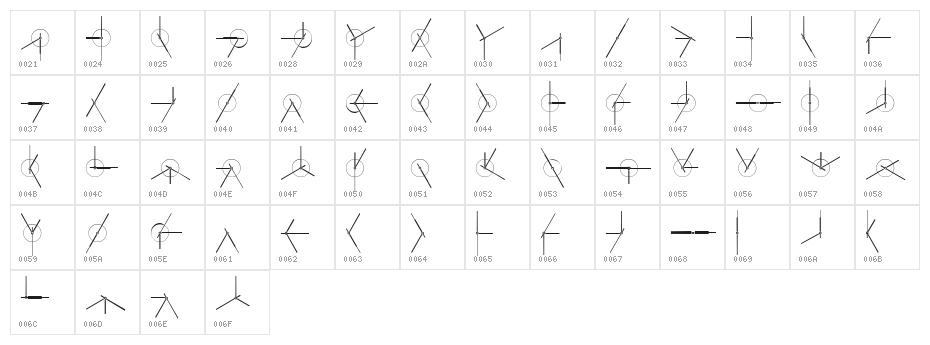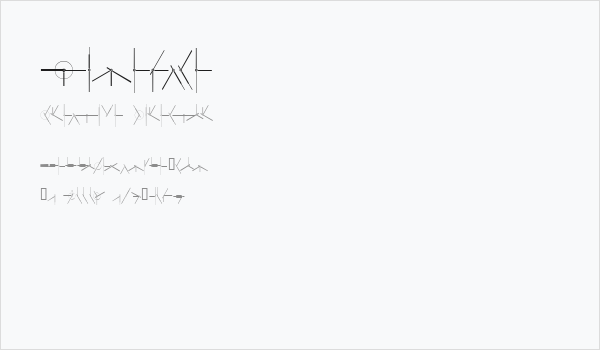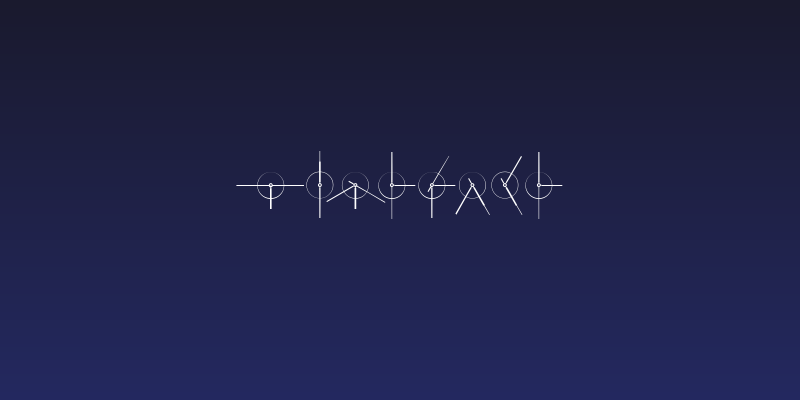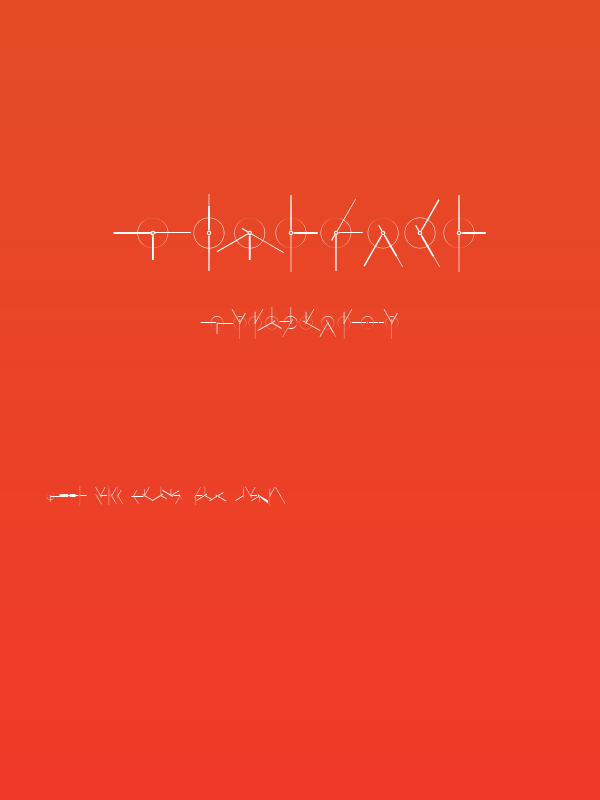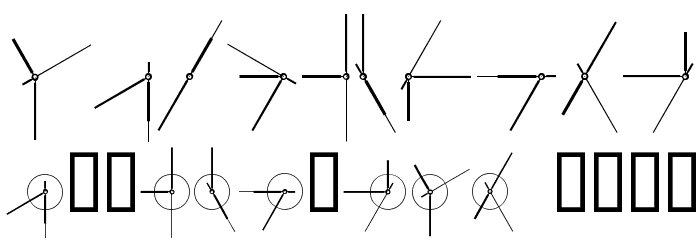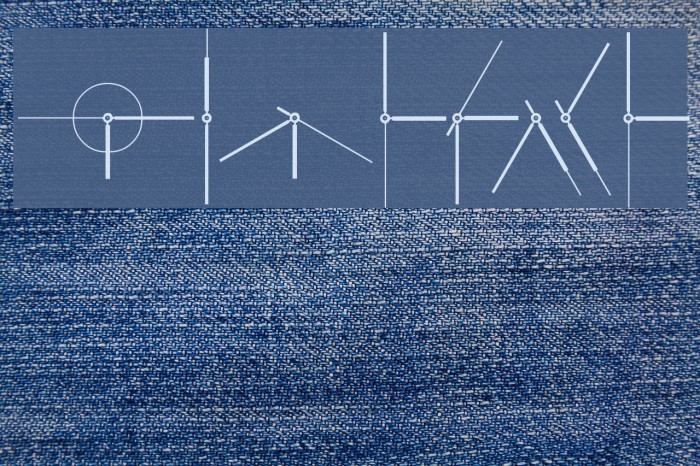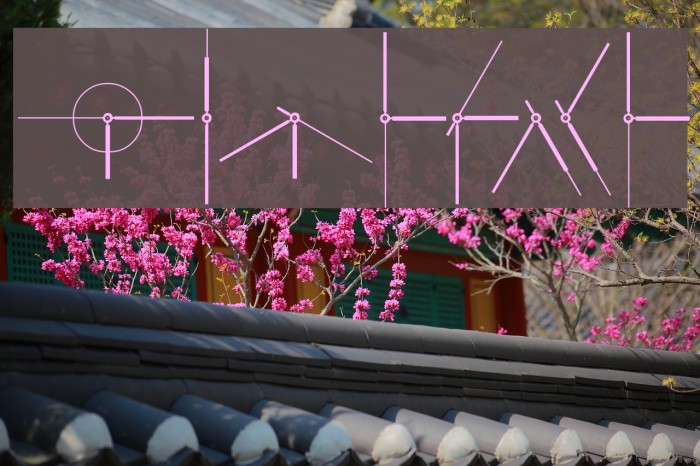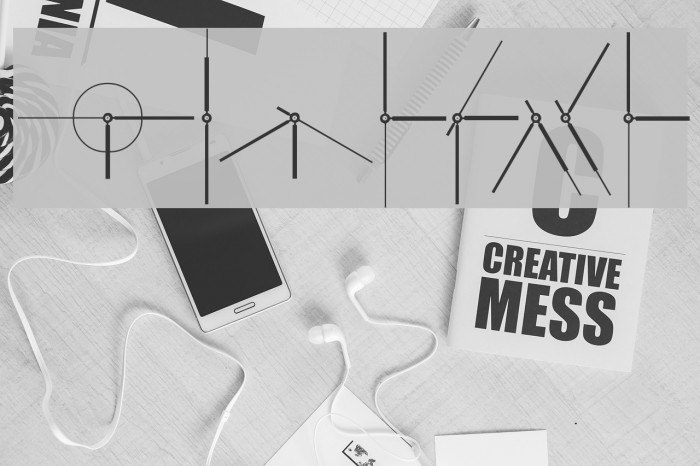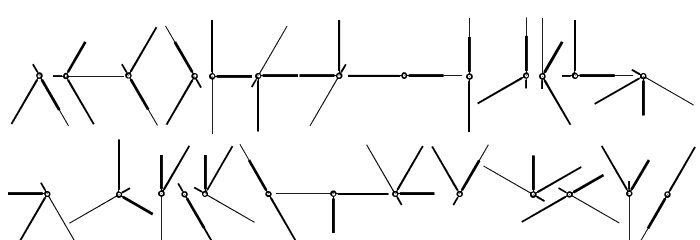
Timeface Font
Timeface Description
This font features a unique design where each character resembles the hands of a clock, with thin lines and circular elements representing the clock face. The characters are constructed with a combination of straight and angled lines, giving them a mechanical and precise appearance. The overall look is minimalist and modern, with a focus on geometric shapes and symmetry. The font's distinct style makes it stand out, offering a creative and innovative approach to typography.